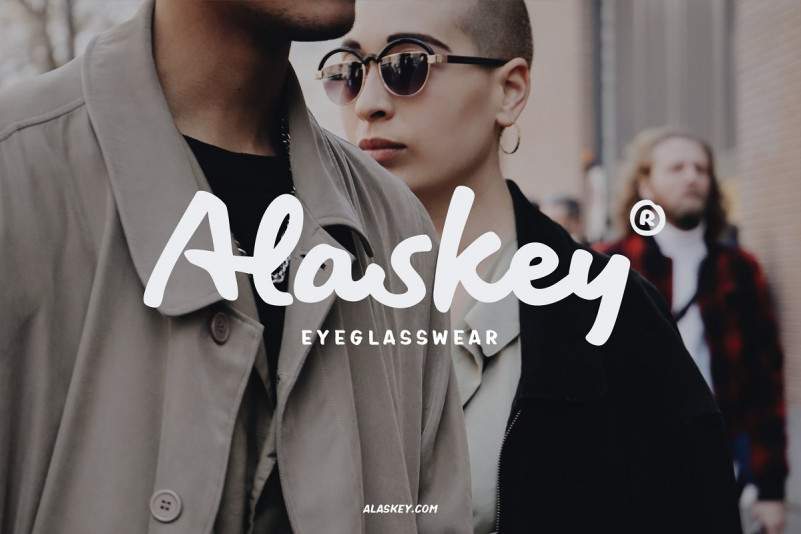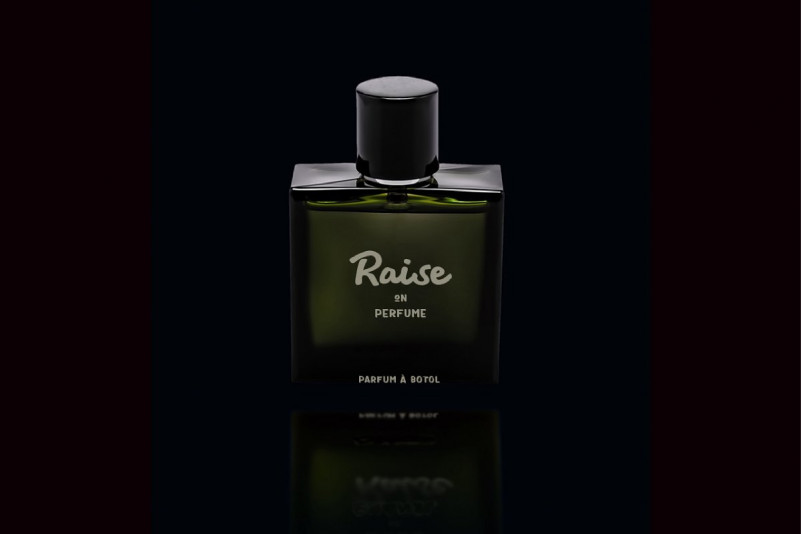
Fiest Font
Fiest Font Duo is a handwritting font that has 3 font characters, script and sans serif plus matching slanted, plus opentype features that make the design more natural and attractive. It’s perfect for Signature, Logo type, Wedding Font, Poster, Brochure or any display use.